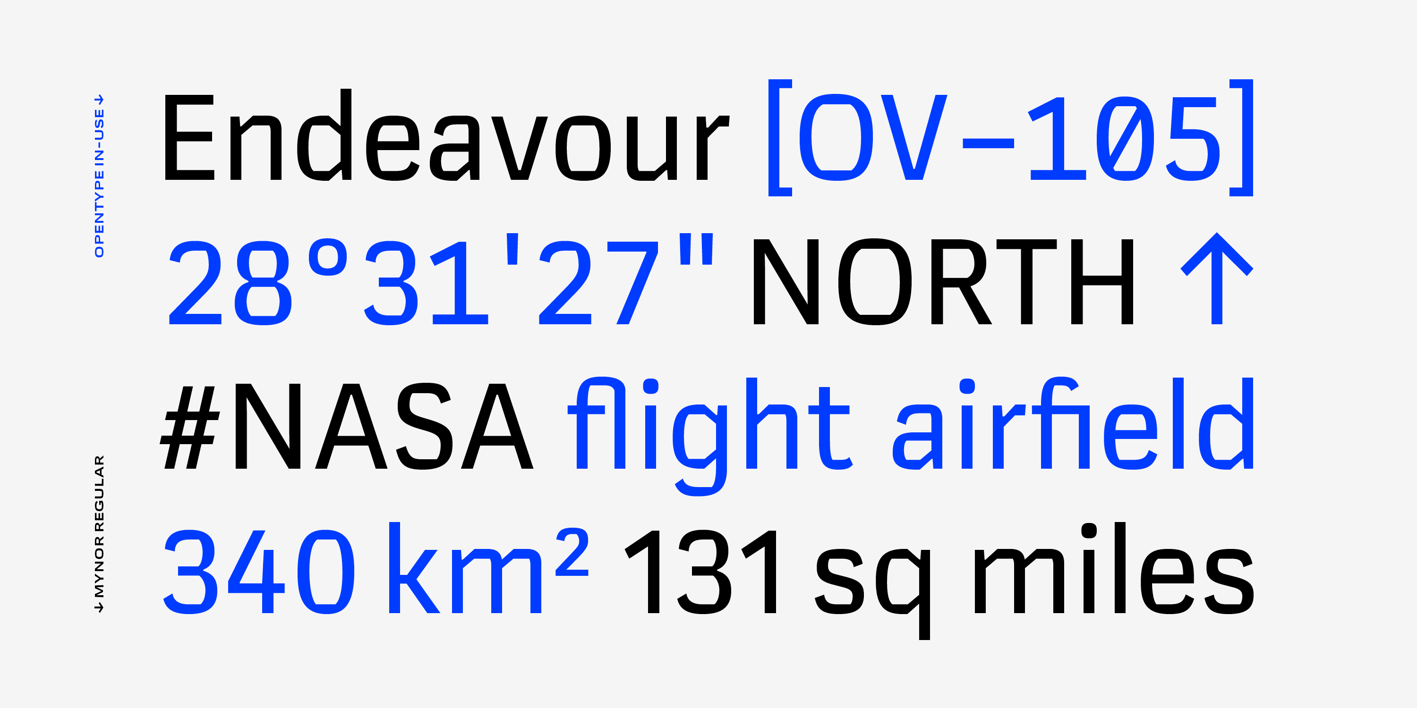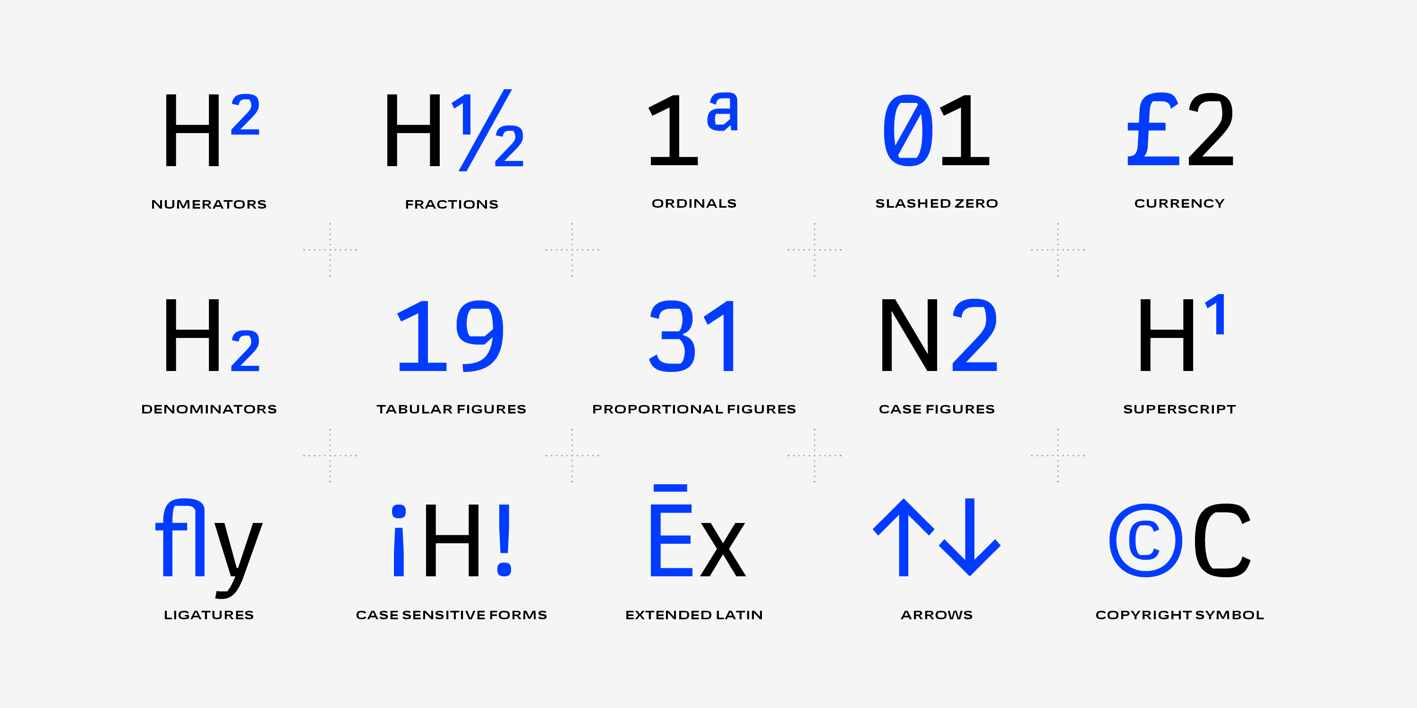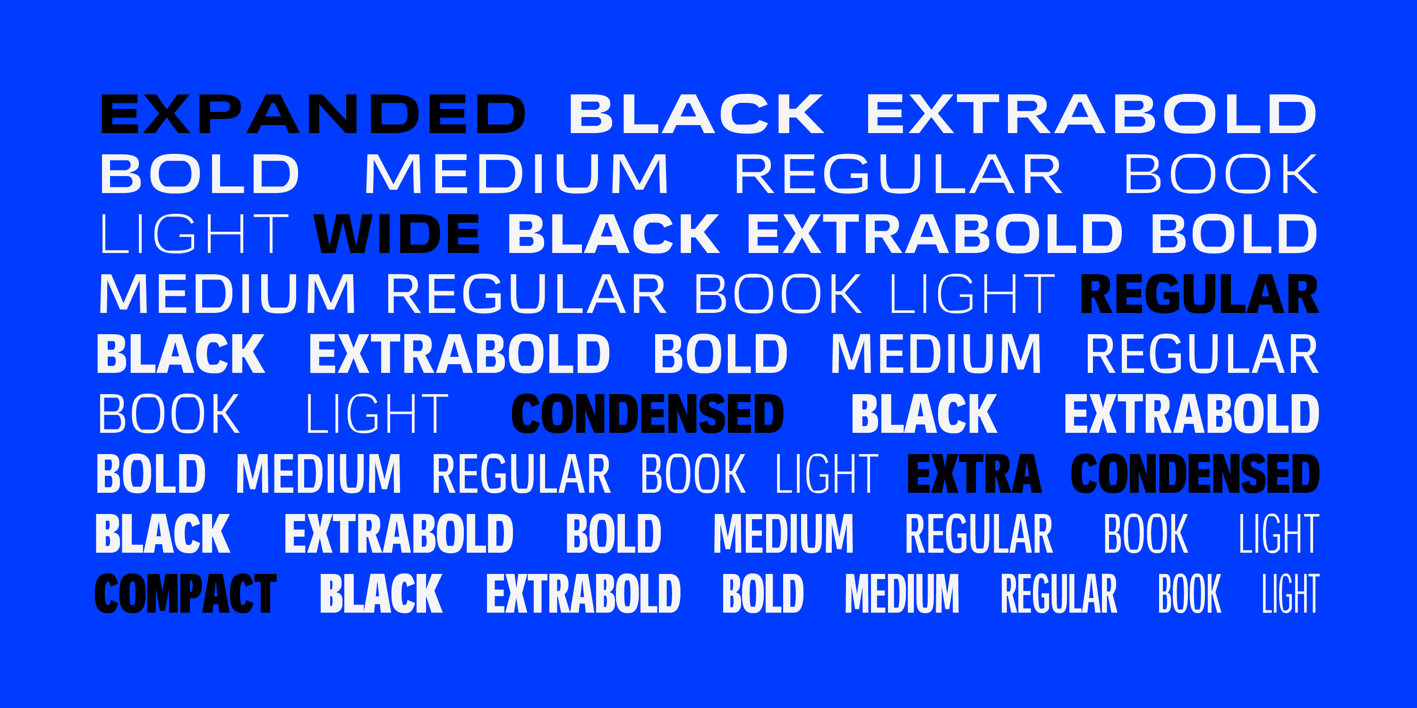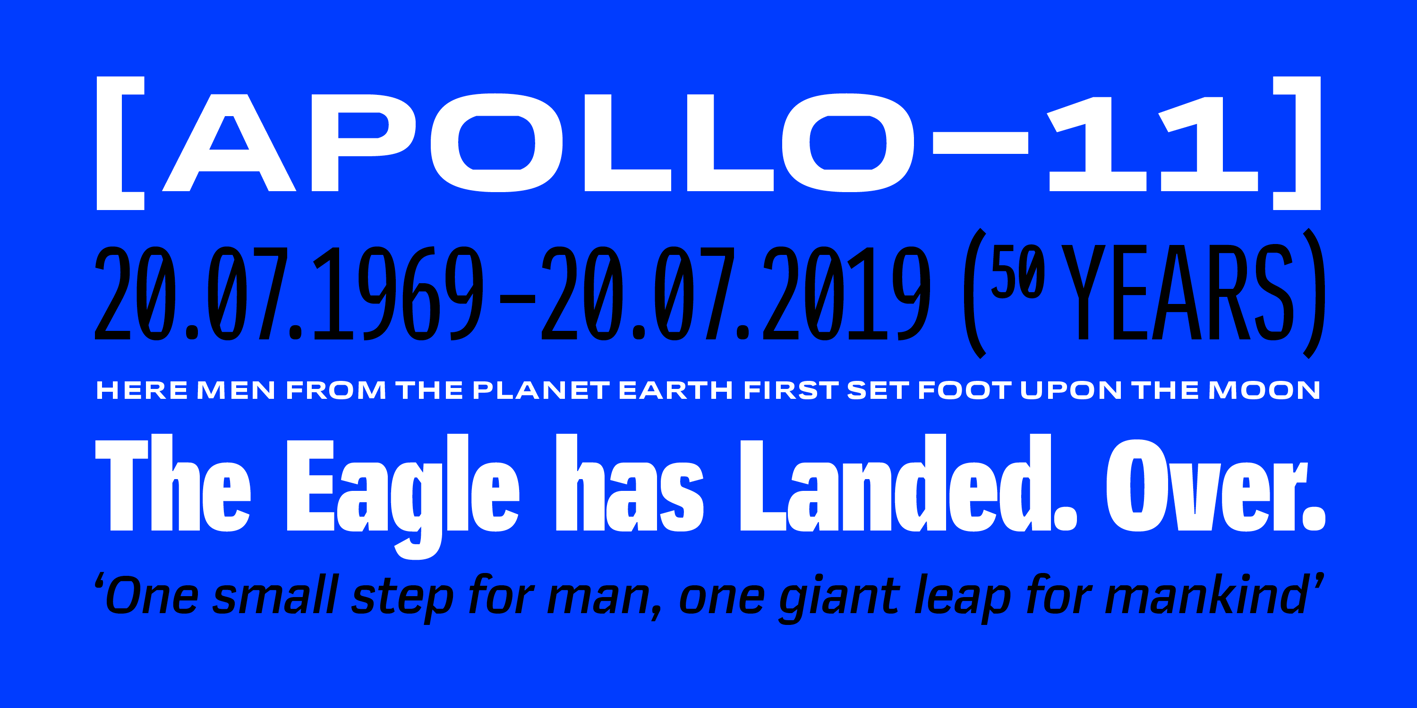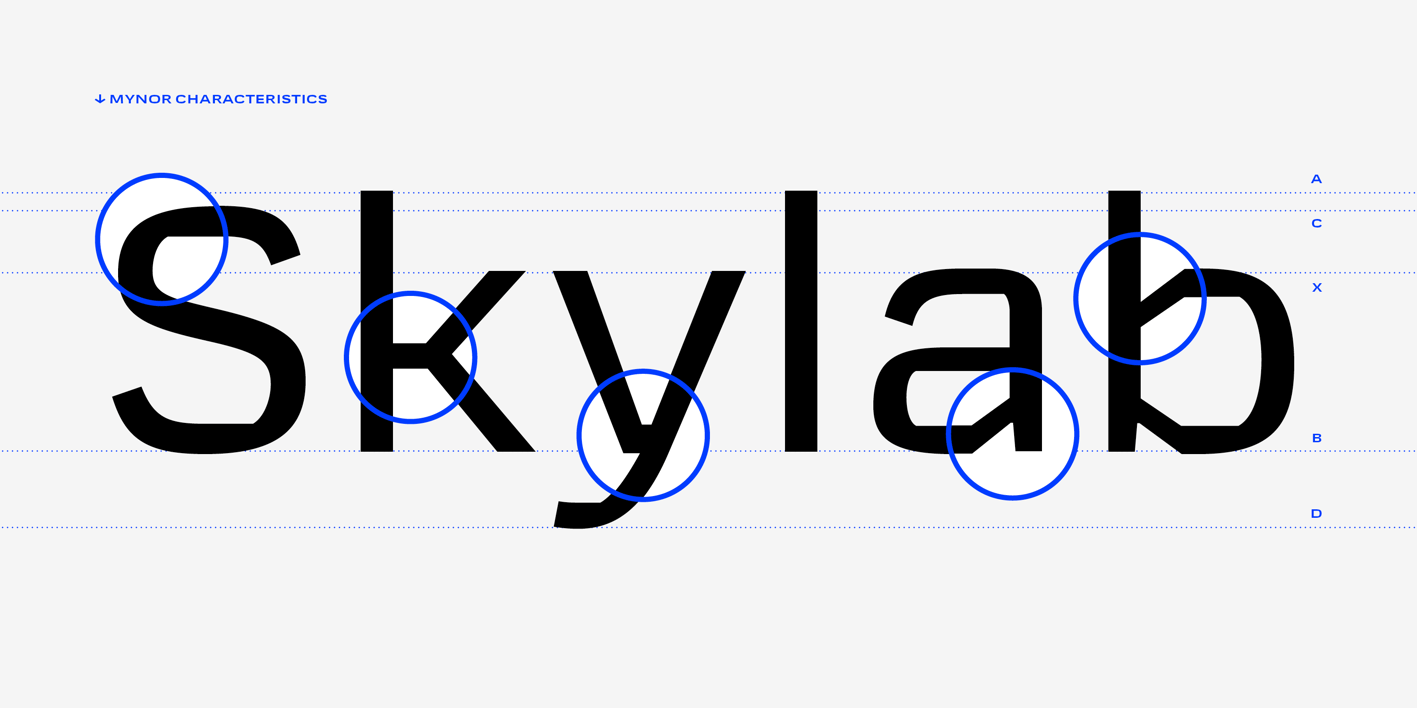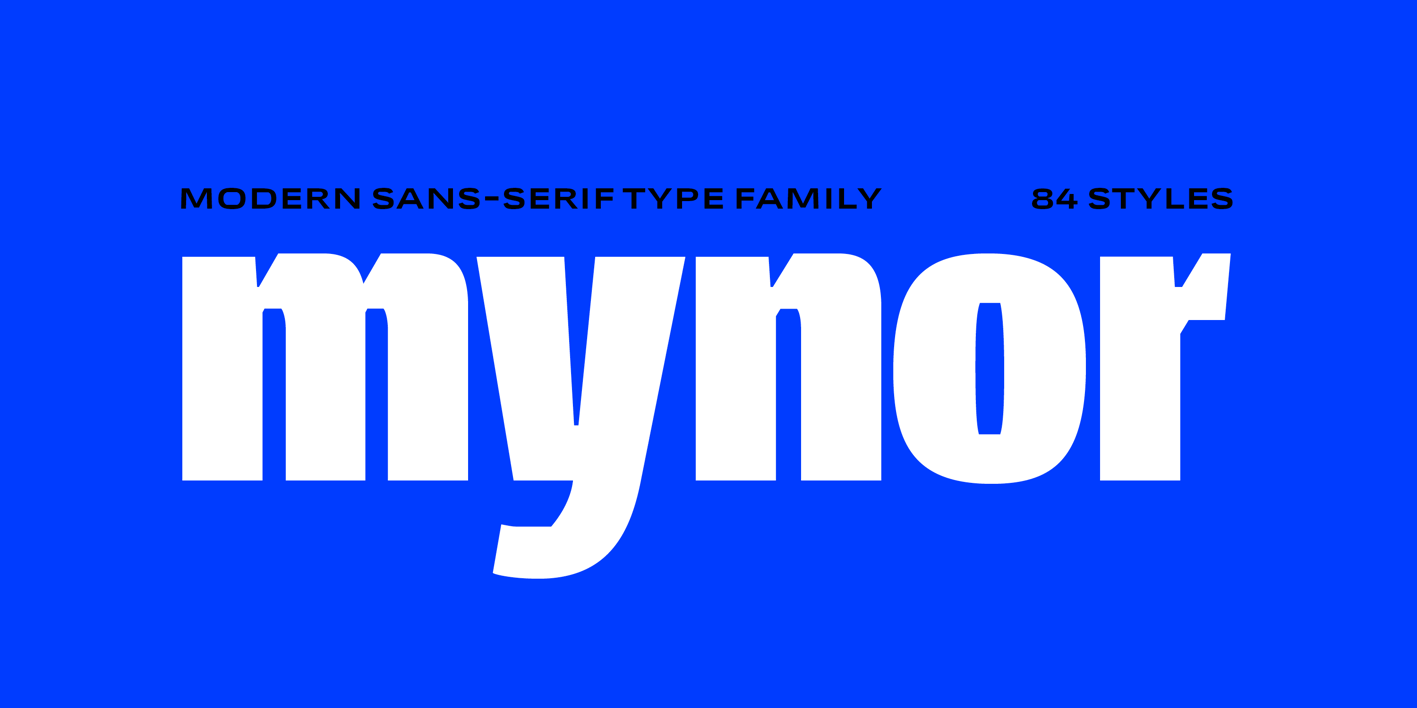
Mynor Font
Mynor Font is perfect for minimalist branding, contemporary corporate identity, modern web interfaces, professional presentations, clean business communications, architectural firm materials, design studio portfolios, tech startup branding, streamlined marketing campaigns, sophisticated logo design, elegant business cards, and refined projects that require subtle, understated typography with contemporary sophistication and minimalist appeal.
What makes Mynor Font so exciting is its refined subtlety and contemporary minimalism that embodies the essential principles of modern design with sophisticated restraint and elegant simplicity. This typeface features clean, understated letterforms with balanced proportions and refined characteristics that create immediate visual harmony while maintaining distinctive personality. The font's minimalist character and contemporary appeal make it perfect for brands and projects that want to communicate sophistication, professionalism, and the kind of confident restraint that defines modern design excellence and understated luxury.
Mynor Font typically comes in multiple weights and styles including Thin, Light, Regular, Medium, Semi-Bold, Bold, and Black variations. Many versions also include condensed widths, extended character sets, and contemporary symbols that enhance the font's minimalist functionality and provide designers with comprehensive tools for creating clean, systematically refined typography compositions that embody sophisticated design principles.
Whether you're designing corporate materials, contemporary branding, or professional communications, Mynor Font delivers exceptional subtlety and modern sophistication that connects with audiences who appreciate refined design and contemporary minimalism. Its clean, understated appearance works beautifully across both digital and print applications, maintaining perfect legibility while expressing sophisticated design values and professional competence.
The precisely refined letterforms of Mynor Font showcase the ultimate expression of contemporary minimalist typography and sophisticated design principles. Each character has been carefully balanced to achieve optimal visual harmony while maintaining distinctive personality, ensuring that your modern communications remain elegantly understated while delivering the sophisticated aesthetic that contemporary audiences expect from premium brands.